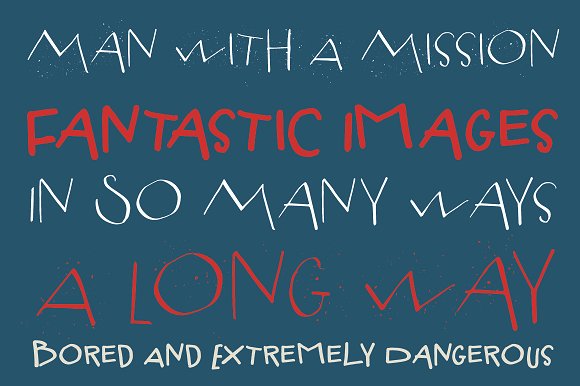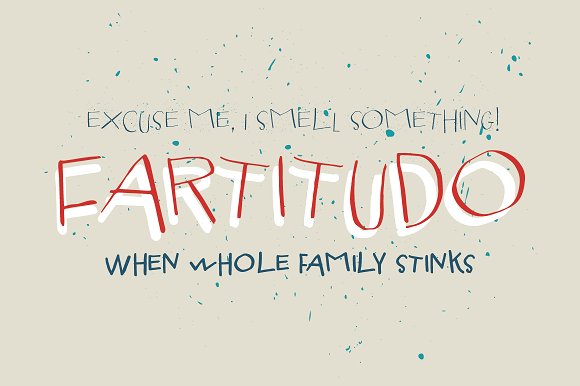
Fartitudo Font: Unleash Your Creativity with a Bit of Provocation
Are you tired of using the same old fonts for your modern package designs, posters, labels, and t-shirts? Look no further than the Fartitudo Font, a bit provocative, catchy, and bouncy family that’s sure to add a spark to your creative projects. In this article, we’ll dive into the world of Fartitudo, exploring its unique features, uses, and benefits for designers and crafters alike.
The Story Behind Fartitudo
Fartitudo Font is a carefully crafted typeface designed to make a statement. Its name may raise a few eyebrows, but don’t let that fool you – this font is all about embracing playfulness and creativity. With its bold, bouncy, and attention-grabbing style, Fartitudo is perfect for projects that require a bit of swagger and personality.
Key Features of Fartitudo Font
- Unique Character Set: Fartitudo boasts a comprehensive character set, including uppercase and lowercase letters, numbers, and special characters. This ensures that you have everything you need to create eye-catching designs.
- Multiple Weights: The font comes in various weights, allowing you to experiment with different styles and textures. Whether you need a bold statement or a more subtle look, Fartitudo has got you covered.
- High-Quality Vectors: Fartitudo is designed with high-quality vectors, ensuring that your designs remain crisp and clear even at large sizes.
What Can You Use Fartitudo Font For?
Fartitudo’s versatility knows no bounds. Here are just a few ideas to get you started:
- Modern Package Designs: Add a pop of personality to your product packaging with Fartitudo’s bold and eye-catching style.
- Posters and Flyers: Create attention-grabbing posters and flyers that demand to be noticed.
- Labels and Stickers: Fartitudo’s bouncy style is perfect for labels and stickers that need to stand out.
- T-Shirts and Apparel: Design unique and stylish t-shirts, hoodies, and other apparel that showcases your brand’s personality.
Benefits of Using Fartitudo Font
So why choose Fartitudo Font for your design projects? Here are just a few benefits:
- Instant Recognition: Fartitudo’s unique style ensures that your designs are instantly recognizable and memorable.
- Time-Saving: With Fartitudo’s comprehensive character set and multiple weights, you can create a wide range of designs without having to switch fonts.
- Professional Quality: Fartitudo’s high-quality vectors ensure that your designs look professional and polished.
Tips for Using Fartitudo Font Effectively
To get the most out of Fartitudo Font, here are a few tips to keep in mind:
- Experiment with Different Weights: Don’t be afraid to try out different weights and styles to find the one that works best for your design.
- Combine with Other Fonts: Fartitudo pairs well with a variety of fonts – experiment with different combinations to create unique and interesting effects.
- Keep it Simple: Don’t overcomplicate your design – Fartitudo’s bold style can speak for itself. Keep your design clean and simple to let the font shine.
Fartitudo Font is a game-changer for designers and crafters looking to add a bit of provocation and personality to their modern package designs, posters, labels, t-shirts, and more. With its unique character set, multiple weights, and high-quality vectors, Fartitudo is the perfect choice for projects that require a bit of swagger and style. So why settle for boring, generic fonts when you can unleash your creativity with Fartitudo?